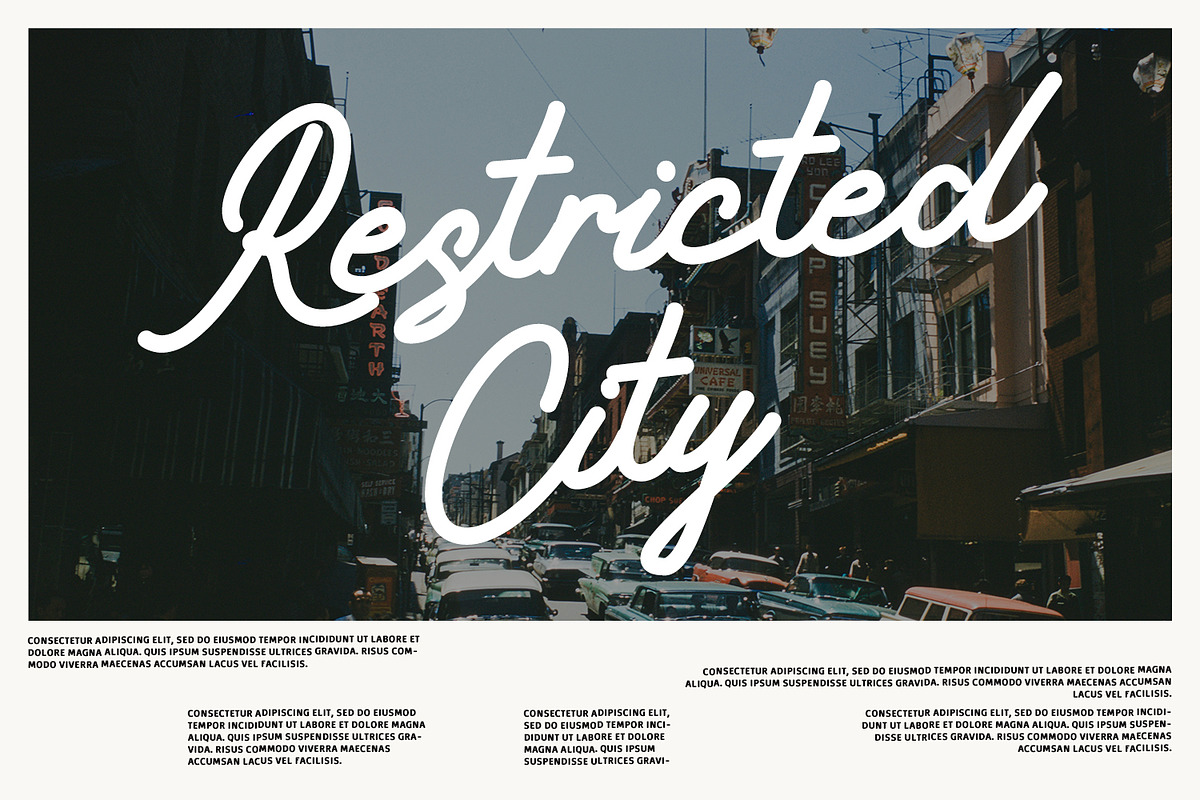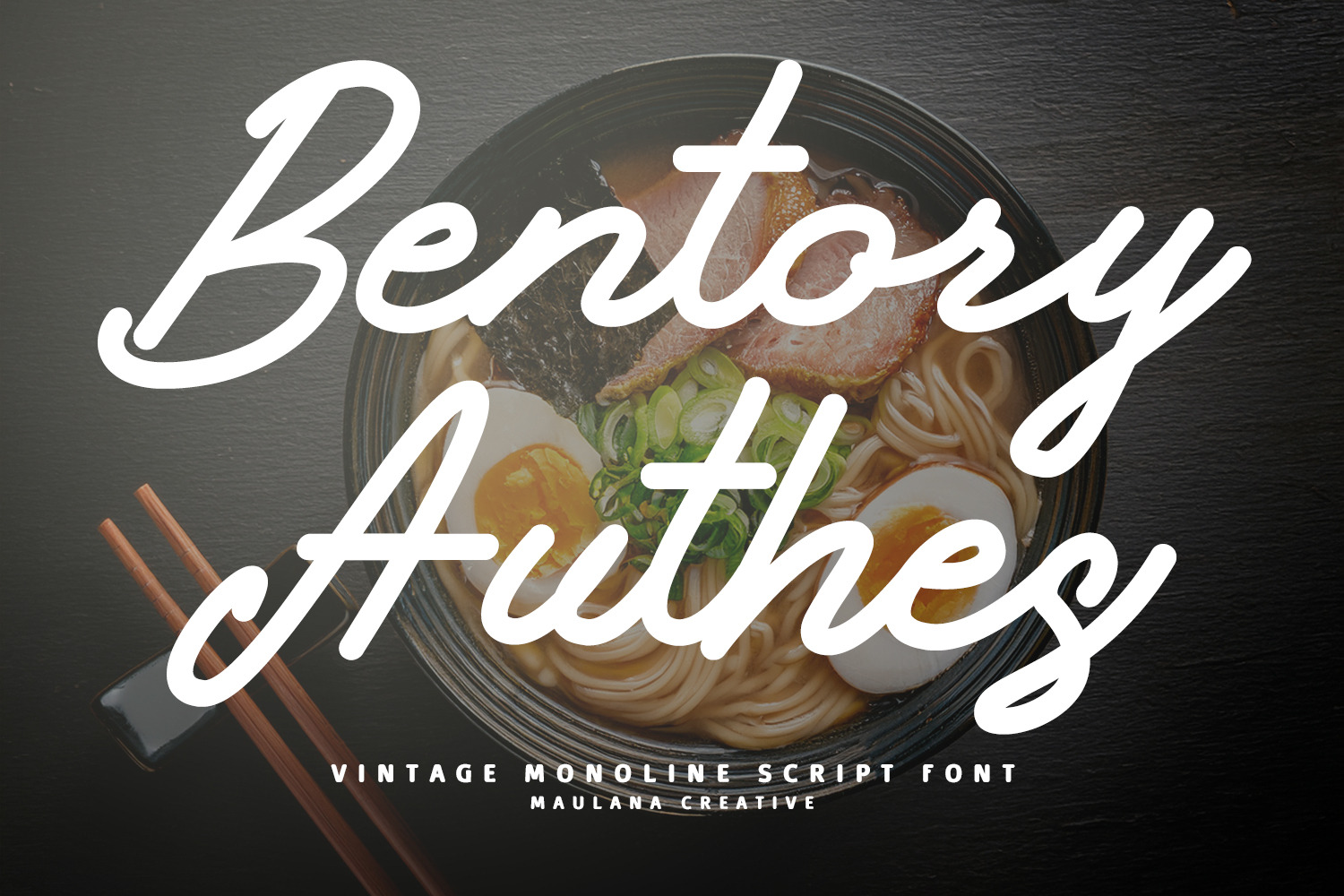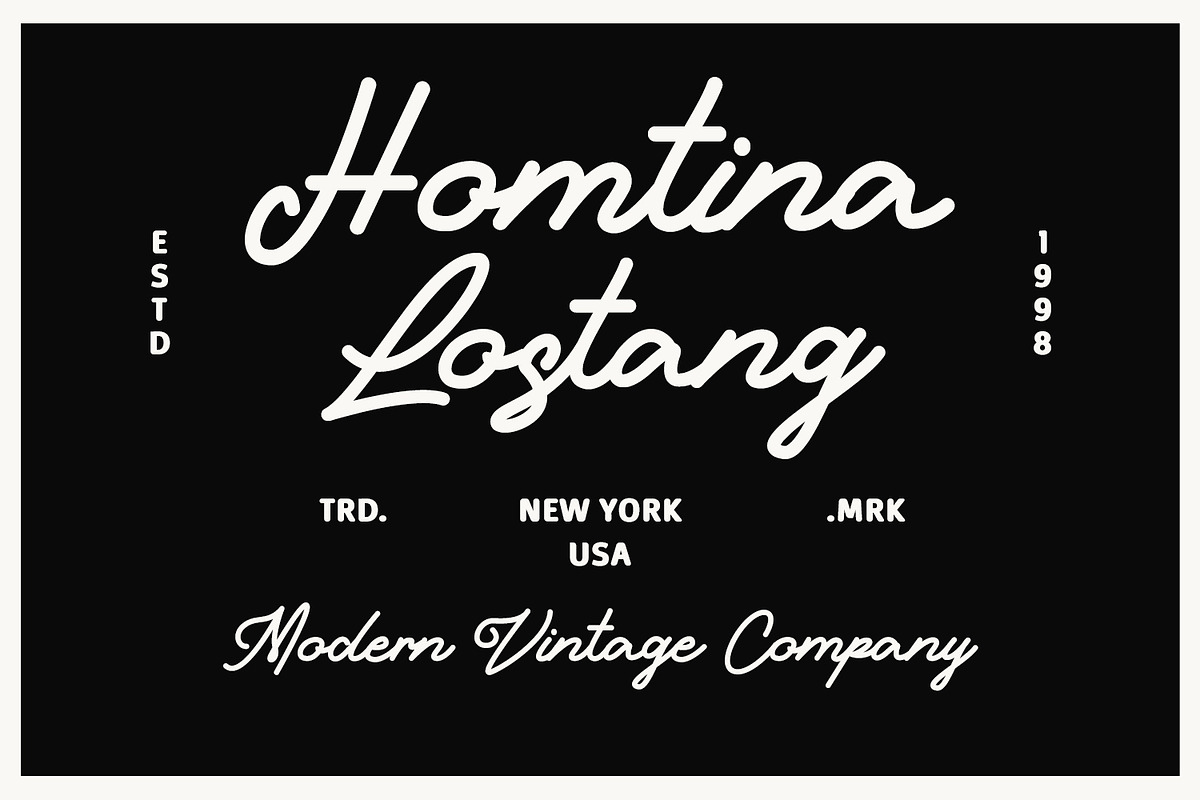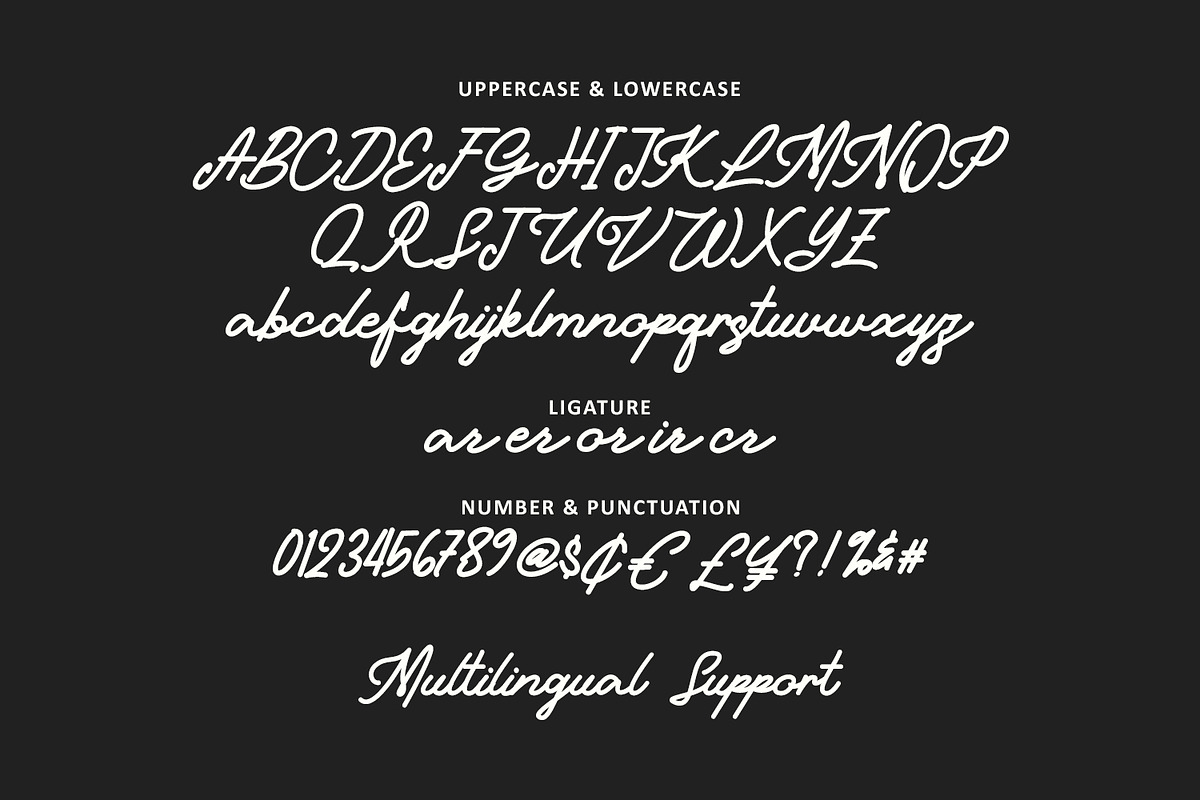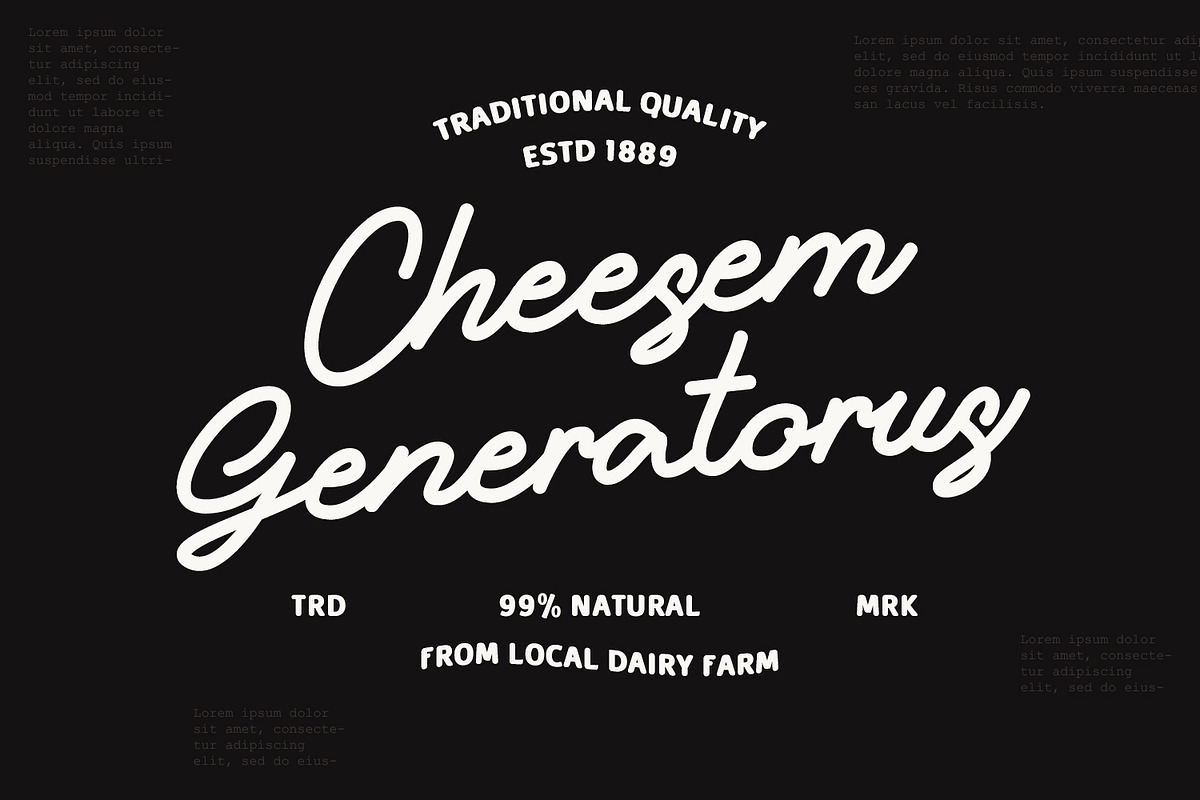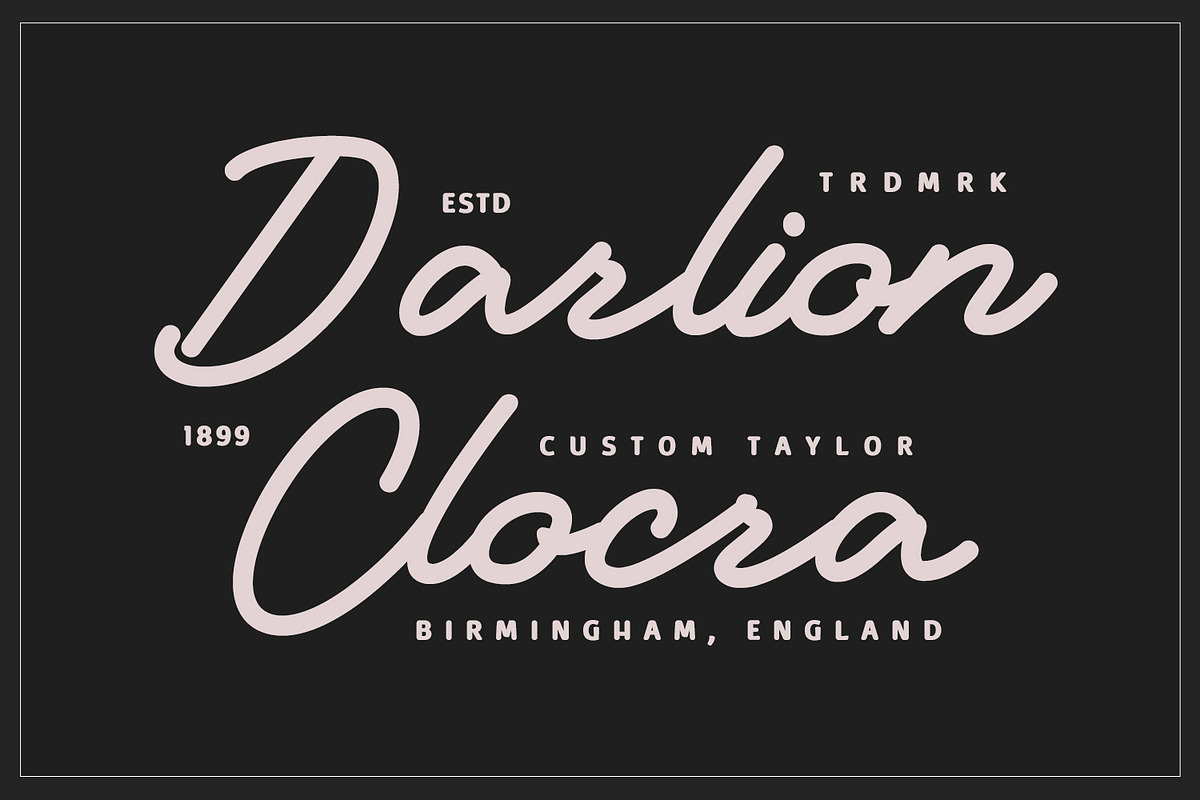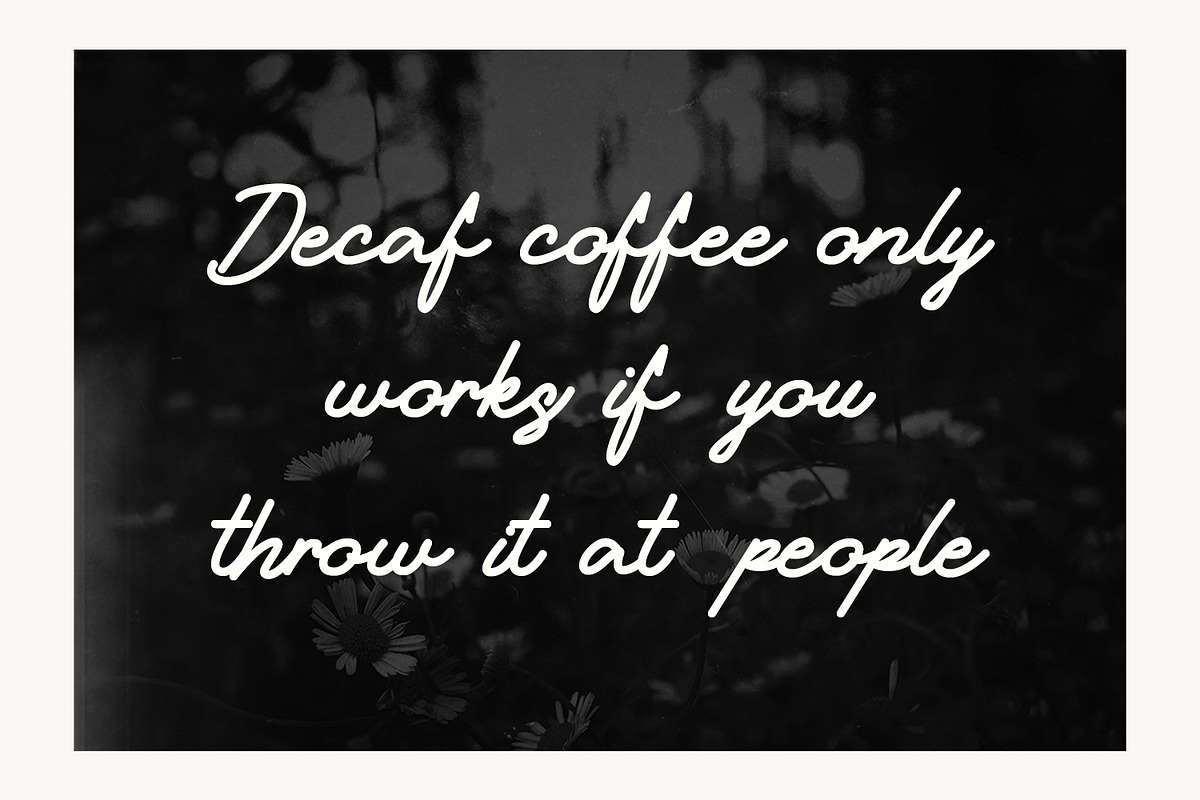
Bentory Authes Vintage Monoline Font
Bentory Authes is a stylish monoline script font that perfectly blends vintage aesthetics with a modern, clean execution. Its smooth, flowing strokes and consistent line weight capture the nostalgic feel of classic 1950s signage and retro branding. Designed by Maulana Creative, this font features elegant ligatures and a full set of uppercase, lowercase, and multilingual characters. It is an ideal choice for logos, design, cafe branding, and product packaging where a touch of authentic, handcrafted charm is required.
- Full character set (Uppercase & Lowercase)
- Numbers, Punctuation, and Symbols
- Ligatures for a natural handwriting flow